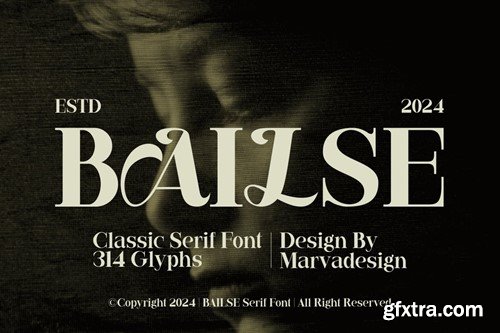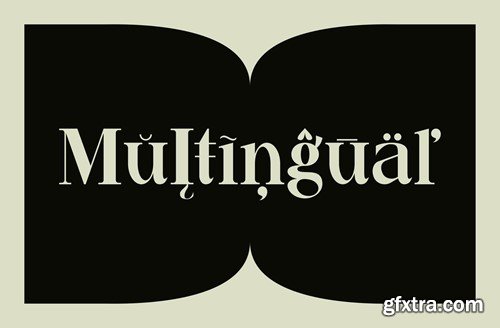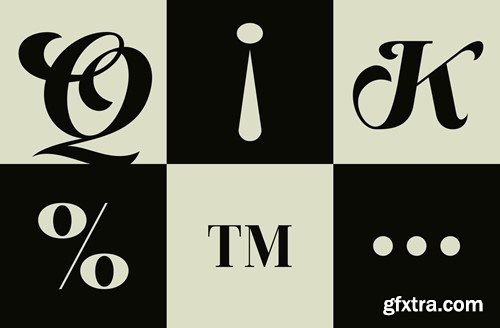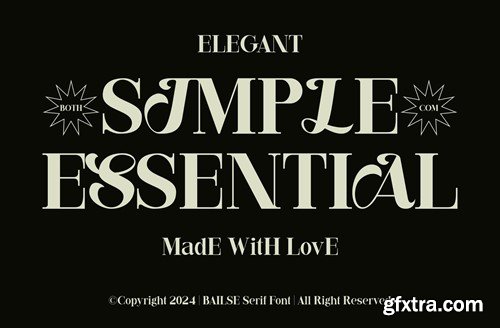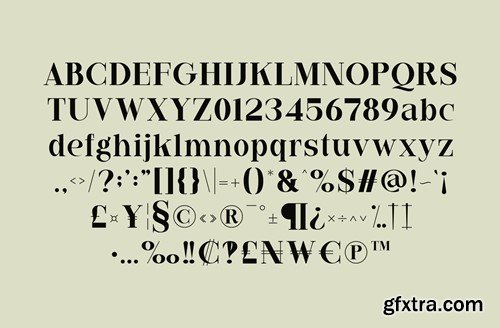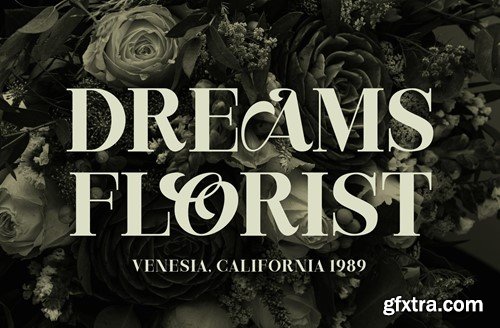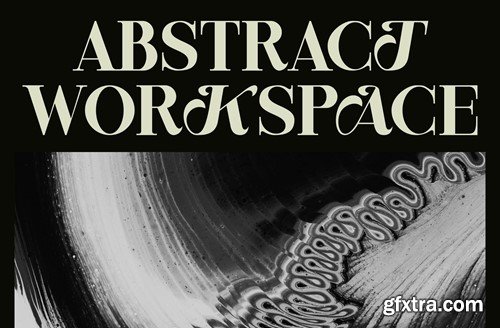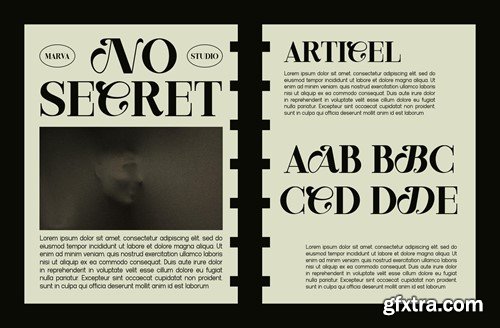
Bailse Serif tend to have fine serif details and well-proportioned proportions. Subtle serif details provide a classic touch without overly framing it. The balanced and proportional proportions of the characters create a neat and orderly impression. Moderate letter height ensures good readability without sacrificing aesthetics. The character can have a slight curve to add softness to the overall look. This font is suitable for use in titles, main text, or other large text in designs that prioritize a formal and classic impression. Bold Decorative Font with a Relaxed Feel Bold decorative fonts with a relaxed feel feature strong boldness, providing clarity and boldness in the message they want to convey. However, the character's style still gives a relaxed and friendly impression. There may be decorative details inspired by nature or other organic elements, such as leaf elements, flowers, or shapes inspired by the everyday environment. This adds warmth and playfulness to the overall design. This font can be used to highlight important elements, make a strong statement, or add an interesting accent to an overall design. By combining these two font types, you can create an interesting contrast between the elegance of an elegant serif and the relaxed boldness of a decorative font, creating a design that is unique, elegant, and eye-catching. availlable